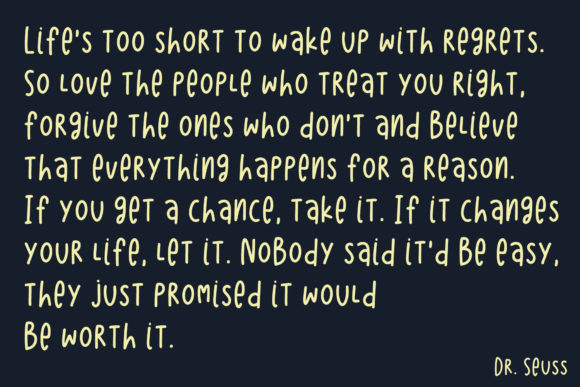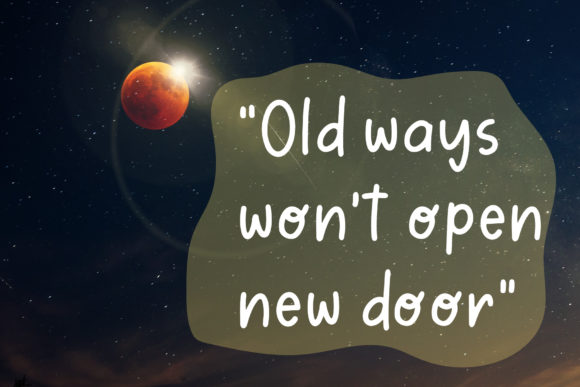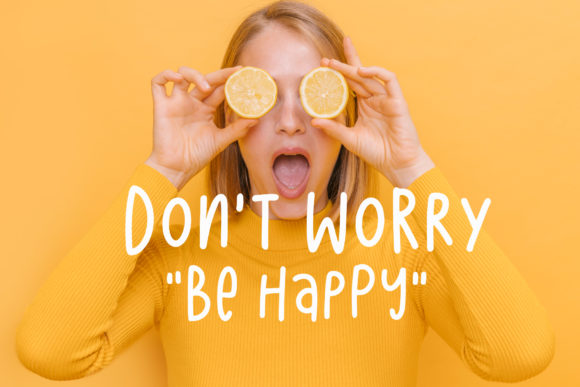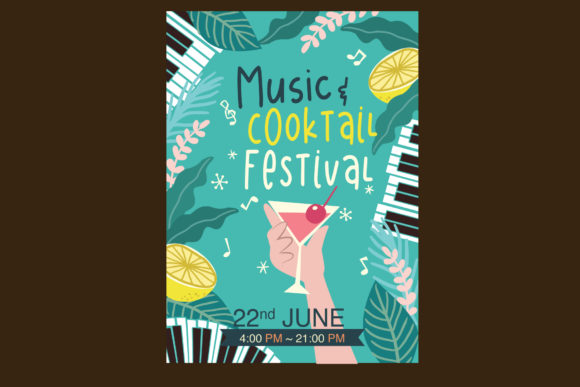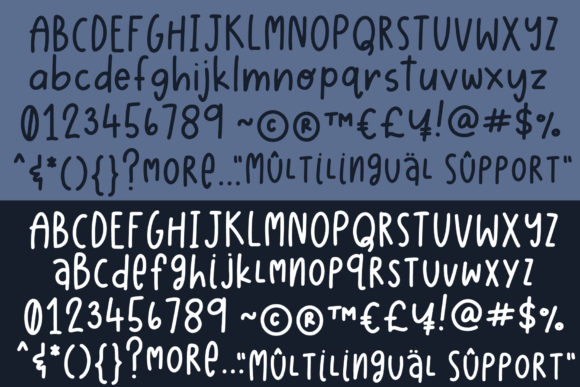
Introduction to Lemon Juicy Font
Have you ever been working on a creative project, and suddenly, the perfect font pops into your mind? For many designers, this moment is a game-changer. It’s the moment when everything falls into place, and your design starts to shine. This is exactly what happened when we stumbled upon the Lemon Juicy Font – a stunning and organic display font that adds a touch of whimsy to any project.
With its cute charm and high-quality design, the Lemon Juicy Font is a valuable resource for designers looking to add some personality to their work. Whether you’re working on a graphic design project, a logo, or a branding identity, this font is sure to bring a smile to your face. And the best part? It’s available for free download, making it an accessible design resource for creatives of all levels.
So, what makes the Lemon Juicy Font so special? For starters, its transparent background allows for seamless integration with any design element. Plus, its organic feel gives it a unique, hand-drawn quality that’s hard to resist. In this article, we’ll dive deeper into the world of the Lemon Juicy Font and explore its many benefits for designers.
Key Features of Lemon Juicy Font
- High-quality font design with a refreshing citrus twist, perfect for creative projects and design resources.
- Features a transparent background, allowing for seamless integration with your design elements and background images.
- Designed with a modern and playful style, ideal for use in digital and print design, including logos, branding, and advertising materials.
- Perfect for designers, artists, and creatives working on projects that require a unique and eye-catching font, such as greeting cards, posters, and social media graphics.
Honest Review: Lemon Juicy Font
As a designer, I’m always on the lookout for high-quality design resources that can elevate my creative projects. The Lemon Juicy Font is one such resource that caught my attention.
I downloaded the font for free and was impressed by its clean, modern design. The transparent background makes it easy to work with and the font is highly legible, making it perfect for body text or headings.
- ✨ What works well: The font’s versatility and ease of use make it a great addition to any design project.
- ✨ The font’s modern design is perfect for creative projects that require a clean and minimalist aesthetic.
- ⚠️ The font may not be suitable for projects that require a bold, dramatic font.
- ⚠️ Some users may find the font too minimalist, lacking in personality or character.
Overall, I’m impressed with the Lemon Juicy Font and would recommend it to designers looking for a high-quality, versatile font for their creative projects.
For the best results, use the Lemon Juicy Font on a high quality design resource, such as a business card or a brochure. This font is also great for creative projects that require a fun and playful touch. Make sure to pair it with a transparent background to really make it pop.
The Lemon Juicy Font is a versatile font that can be used in a variety of situations. Some common use cases include: food labels, restaurant menus, and children’s party invitations. It’s also great for social media graphics and online advertisements.